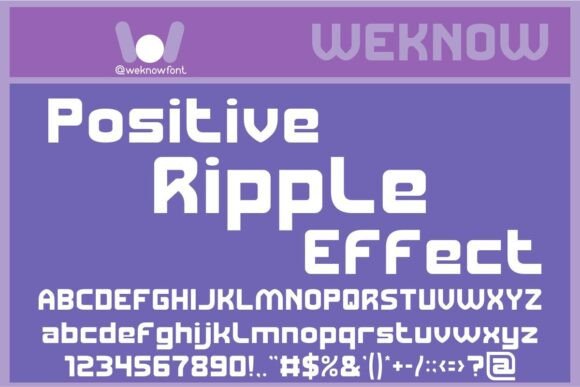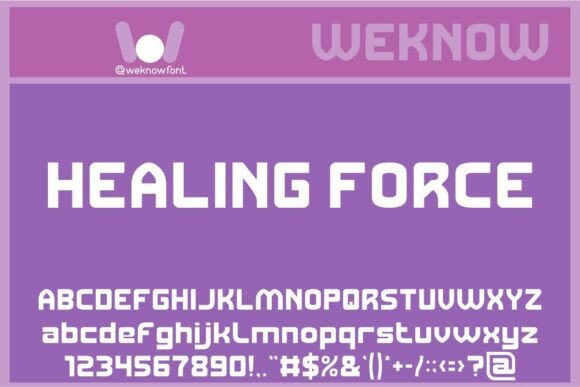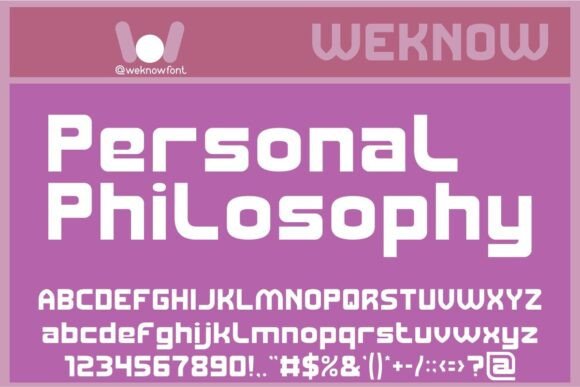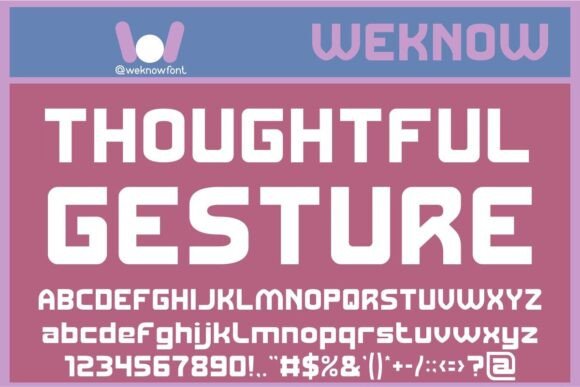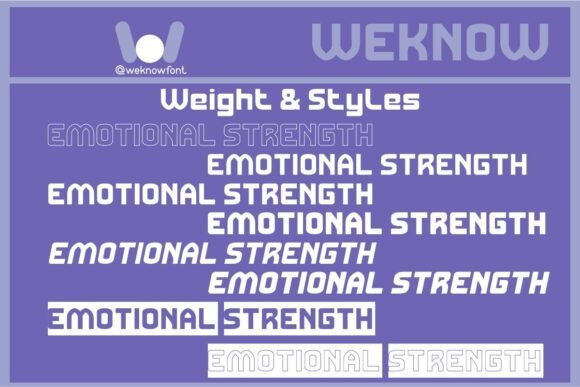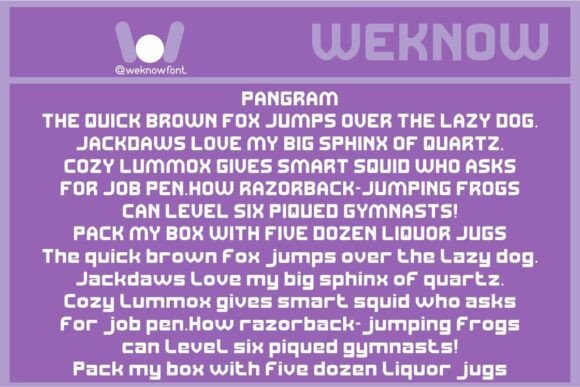
Introduction to Emotional Strength Font
Unleash a wave of potency with Emotional Strength, a bold sans serif font that speaks volumes.
Crafted with precision, this display font brings a powerful clarity and smooth finish to your design It seamlessly fits a broad range of applications, from crafting a stunning logo or headline to establishing a distinctive corporate or brand identity.
Key Features of Emotional Strength Font
Why Choose Emotional Strength Font?
Emotional Strength Font offers exceptional quality and versatility, making it a valuable addition to your design toolkit. Whether you’re creating for personal projects or commercial use, Emotional Strength Font delivers professional results.